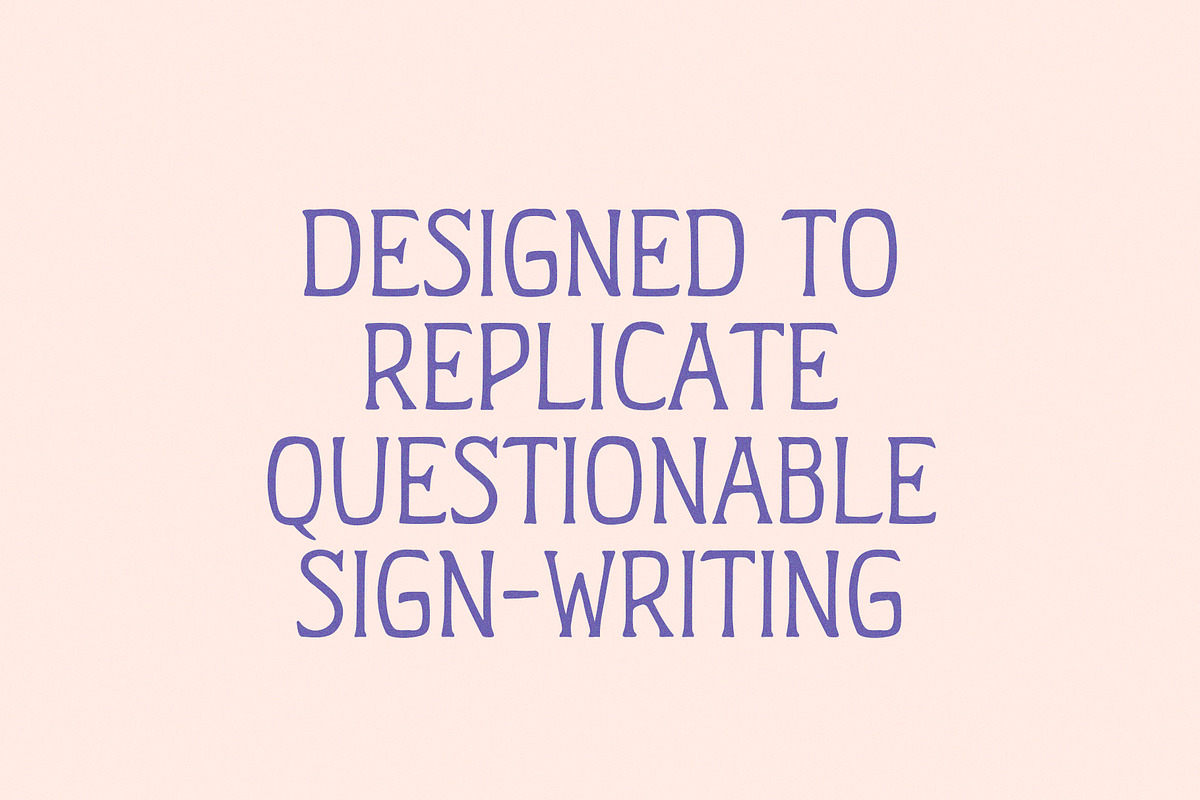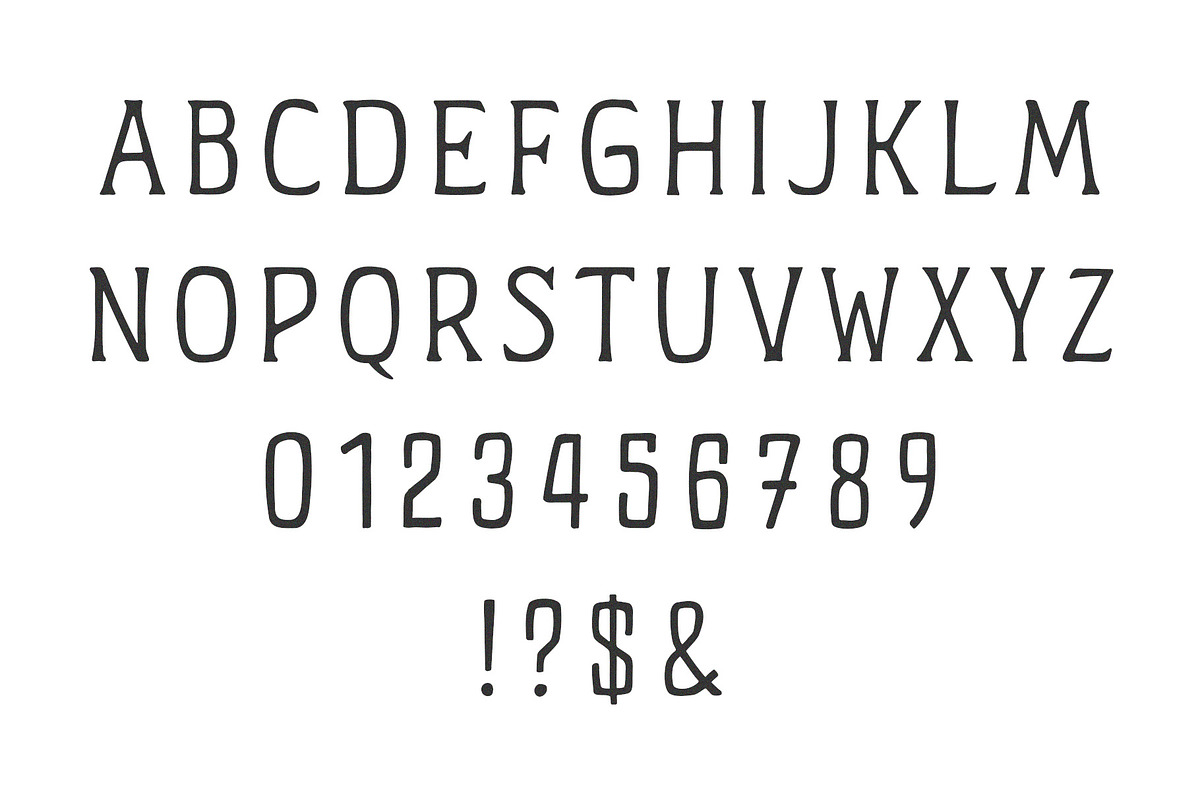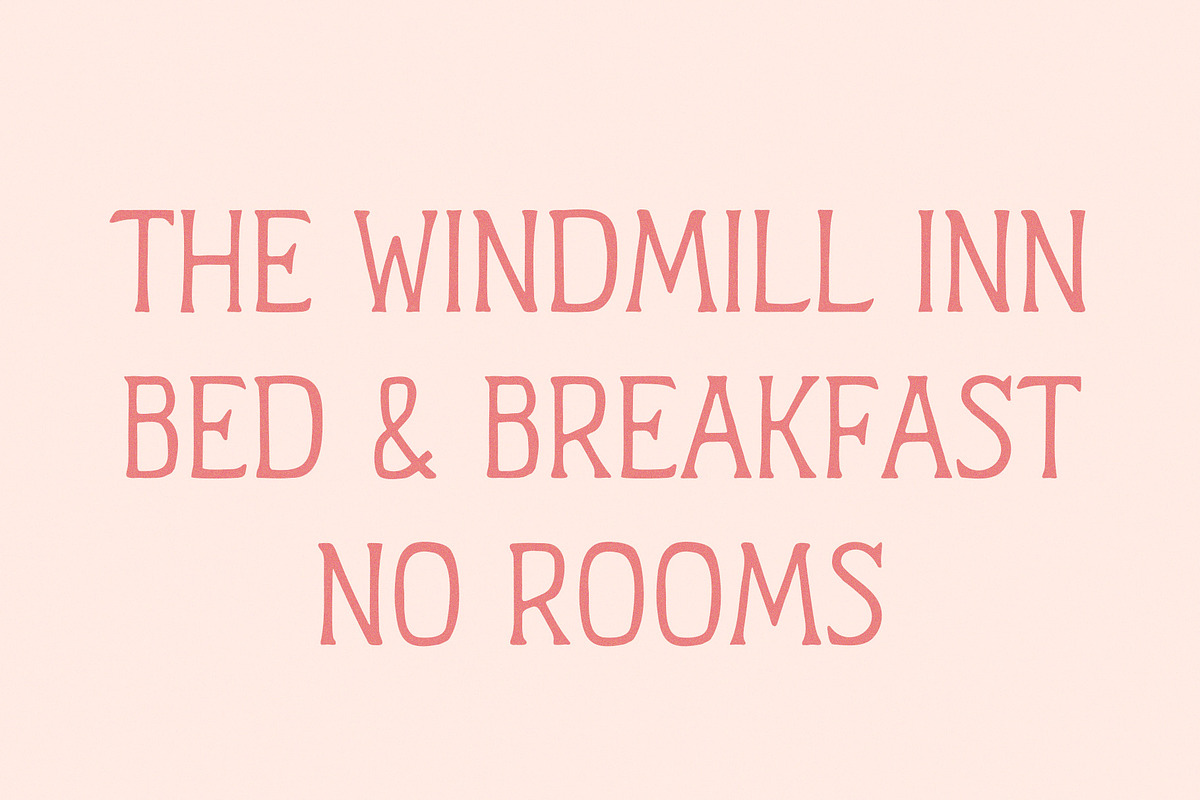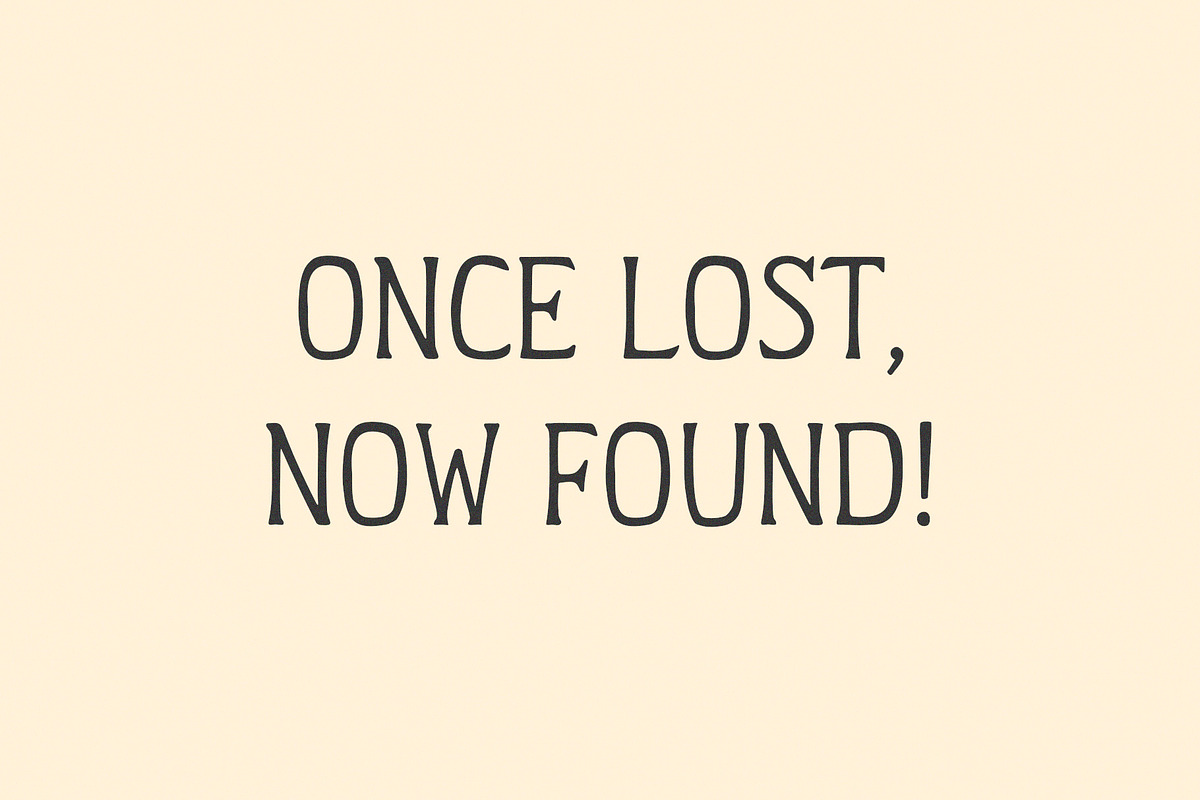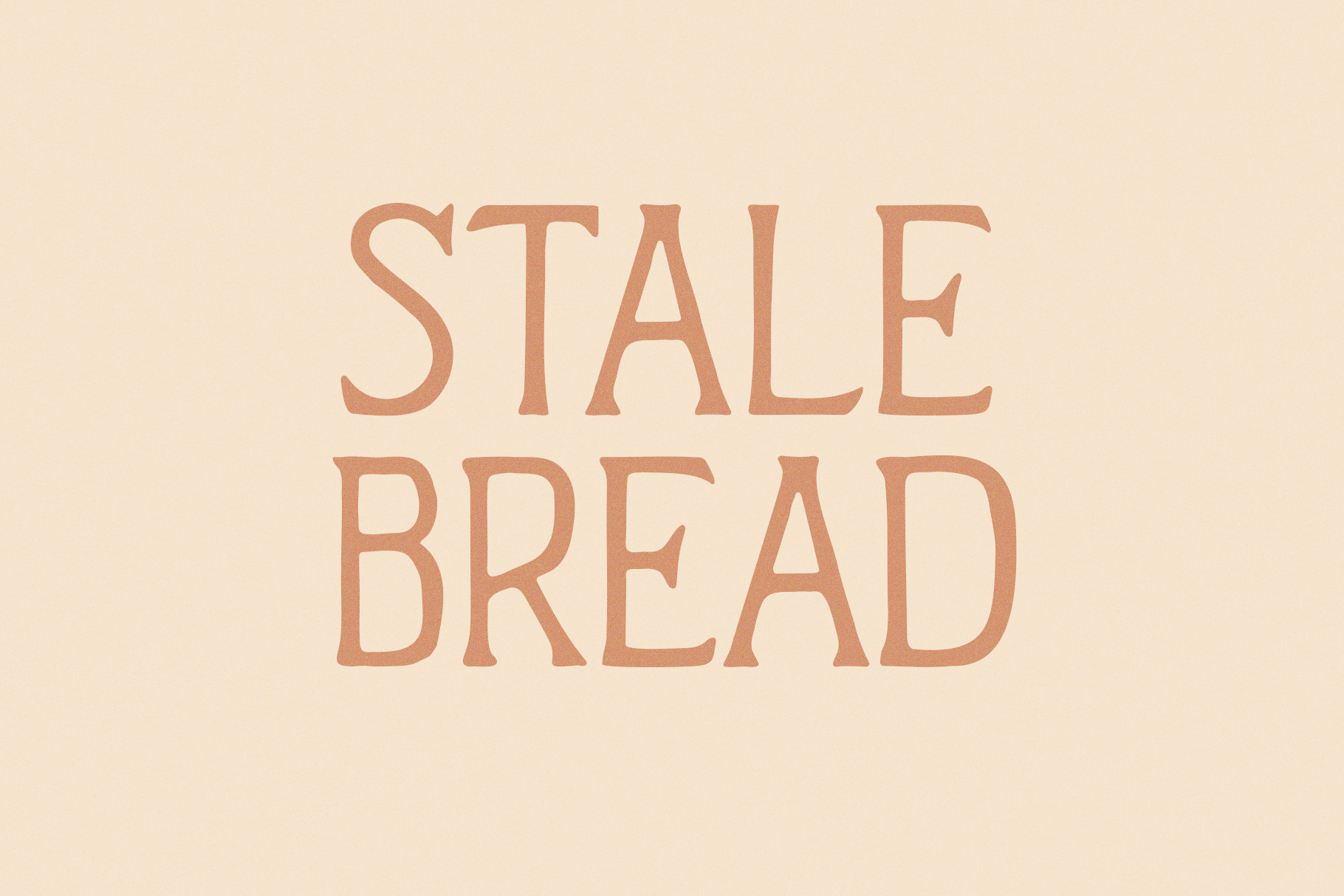
Stale Bread | Vintage Display Font
Stale Bread replicates the imperfect signage of yonderyear. Crude but polished enough to impress your mum, Stale Bread achieves that hand-drawn aesthetic from the comfort of your armchair.
Contains uppercase A-Z, numbers 0-9, and very basic punctuation.